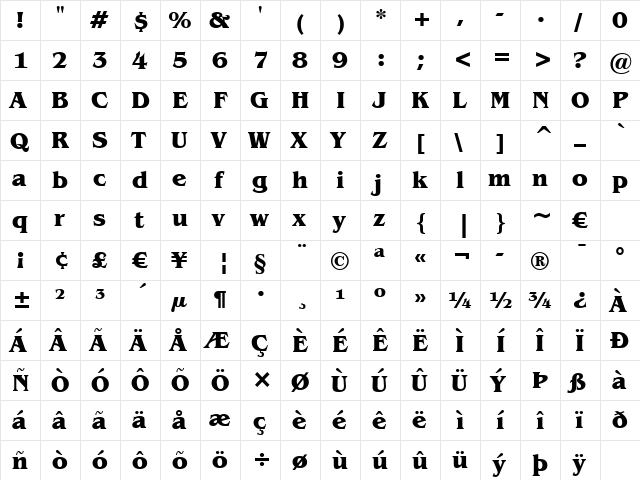
Benguiat Bk BT Bold Font Preview
Benguiat Bk BT Bold
Design Context for Benguiat Bk BT Typeface
Benguiat Bk BT offers clean, dependable letterforms without strong stylistic allegiance, making it a practical choice for designers who need flexibility. The heavy weight commands attention and anchors typographic hierarchies.